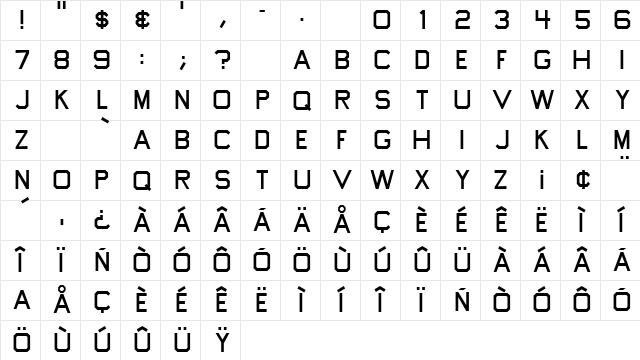
Tapeworm Regular Free Font
Tapeworm Regular
Design Context for Tapeworm
Tapeworm is a composed and adaptable typeface that performs quietly and consistently across a wide range of design contexts.